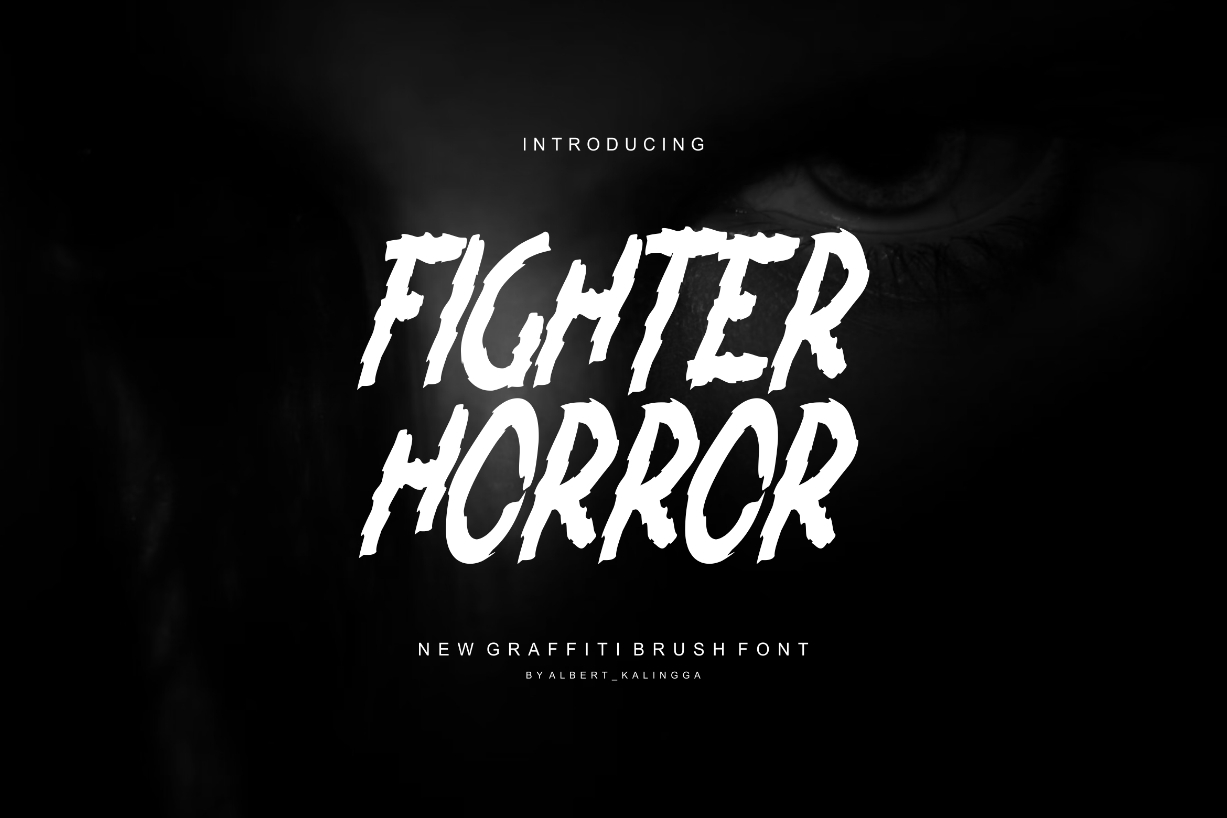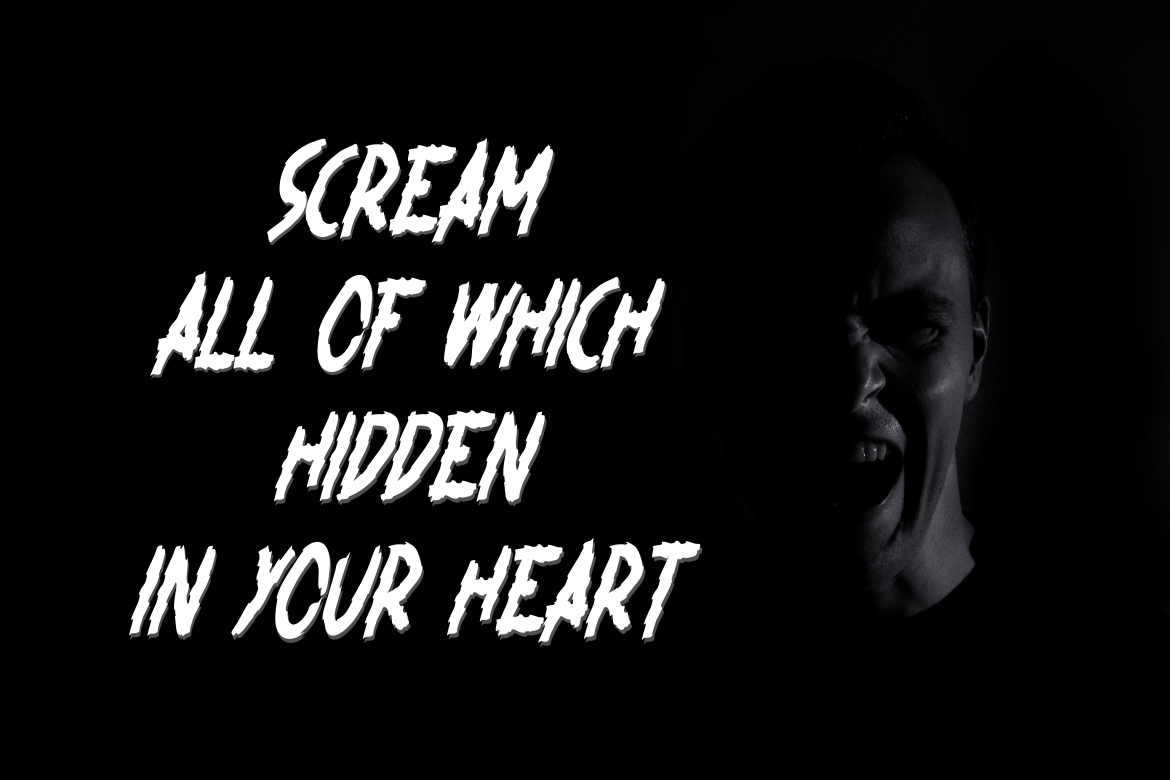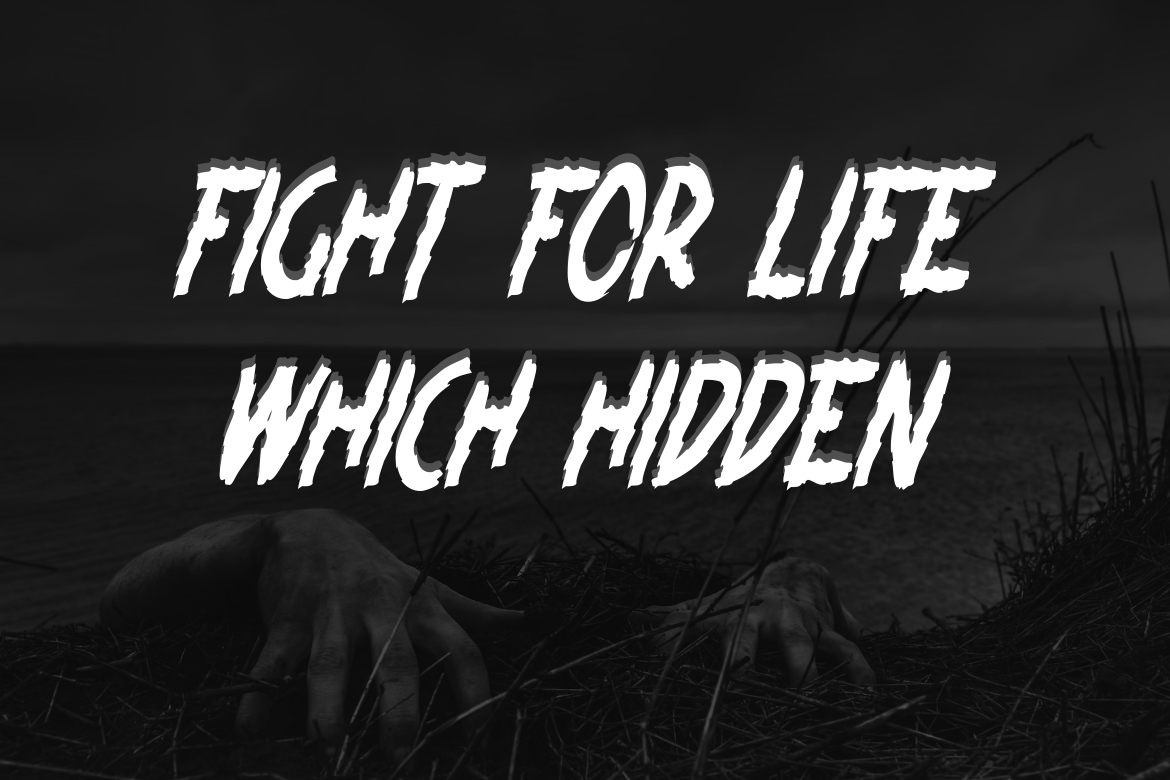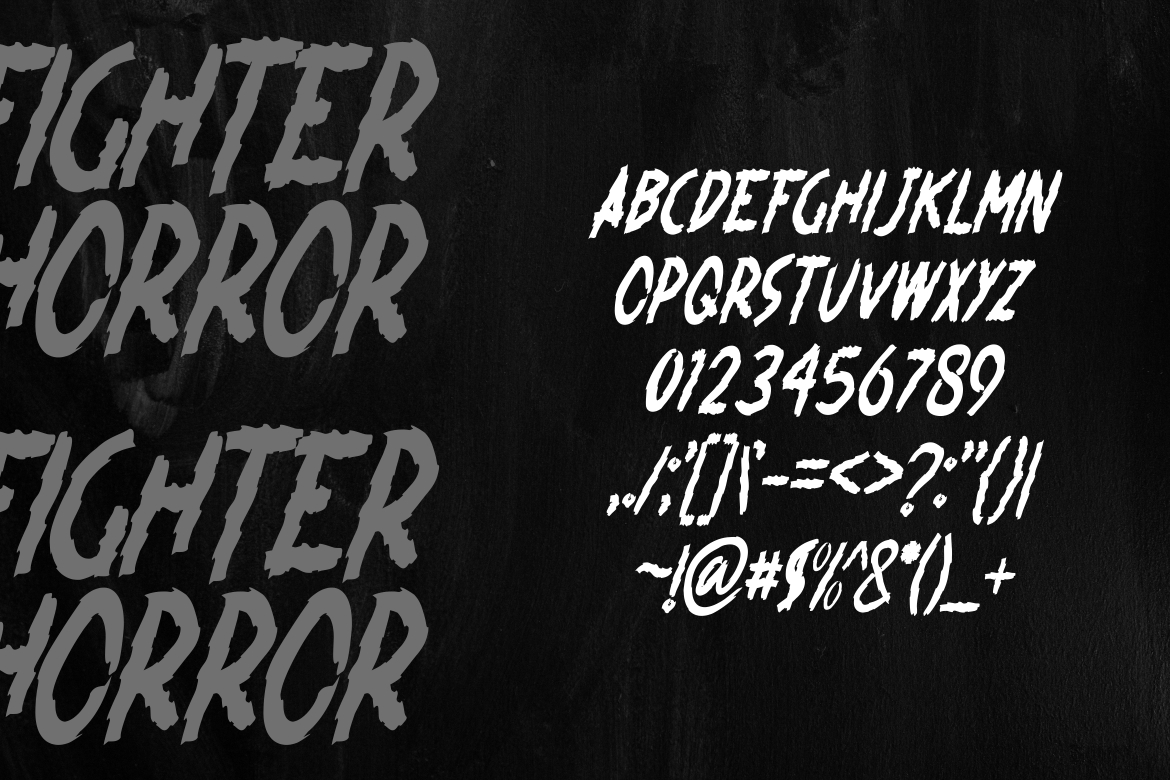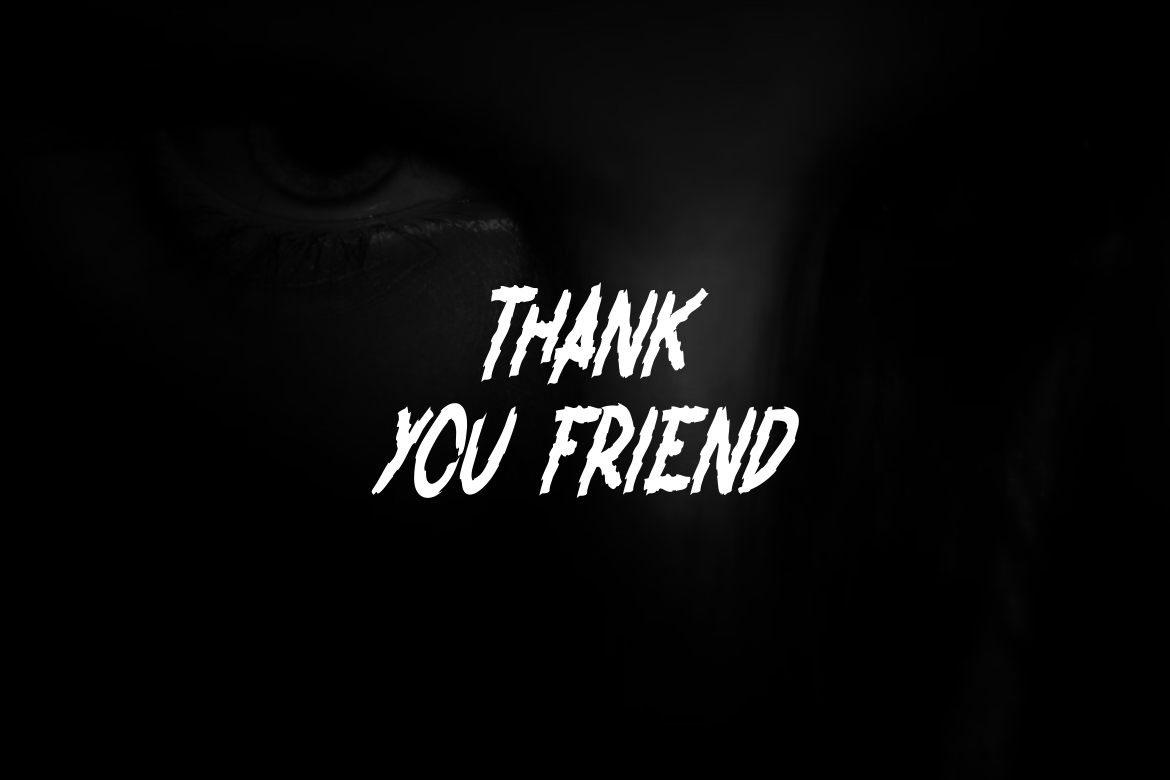
Fighter Horror Font
About Fighter Horror Font
Introducing our new product **Fighter Horror Font** – Modern Font
**Fighter Horror Font** – Modern Font is a bold and authentic display font. The font is suitable for any branding project like logo, esports, and many more. outstanding in a wide range of contexts.